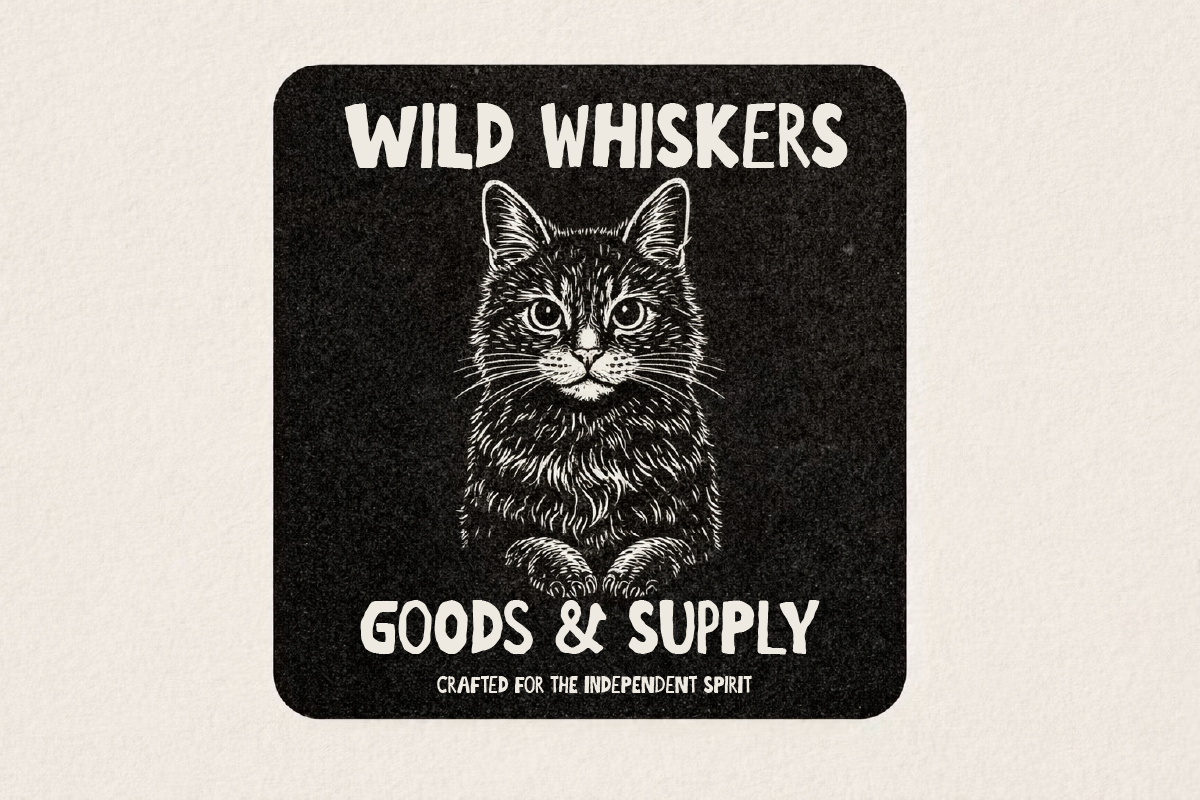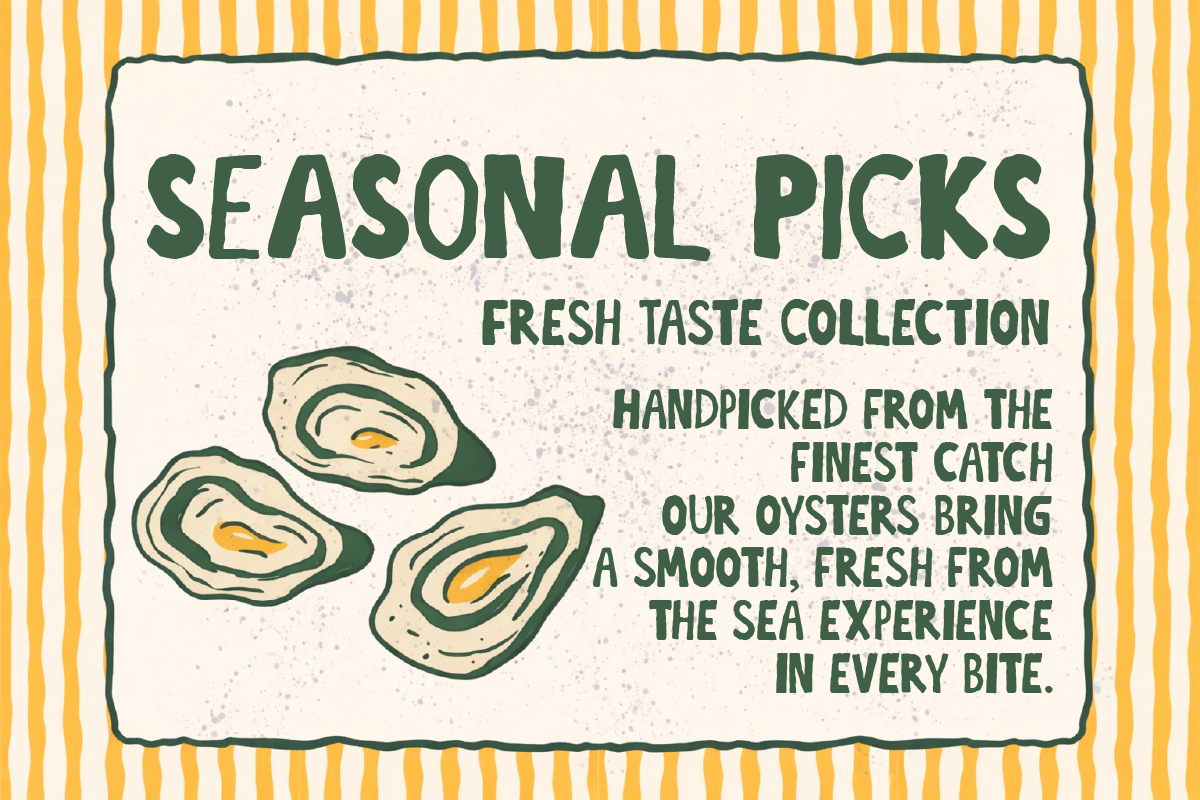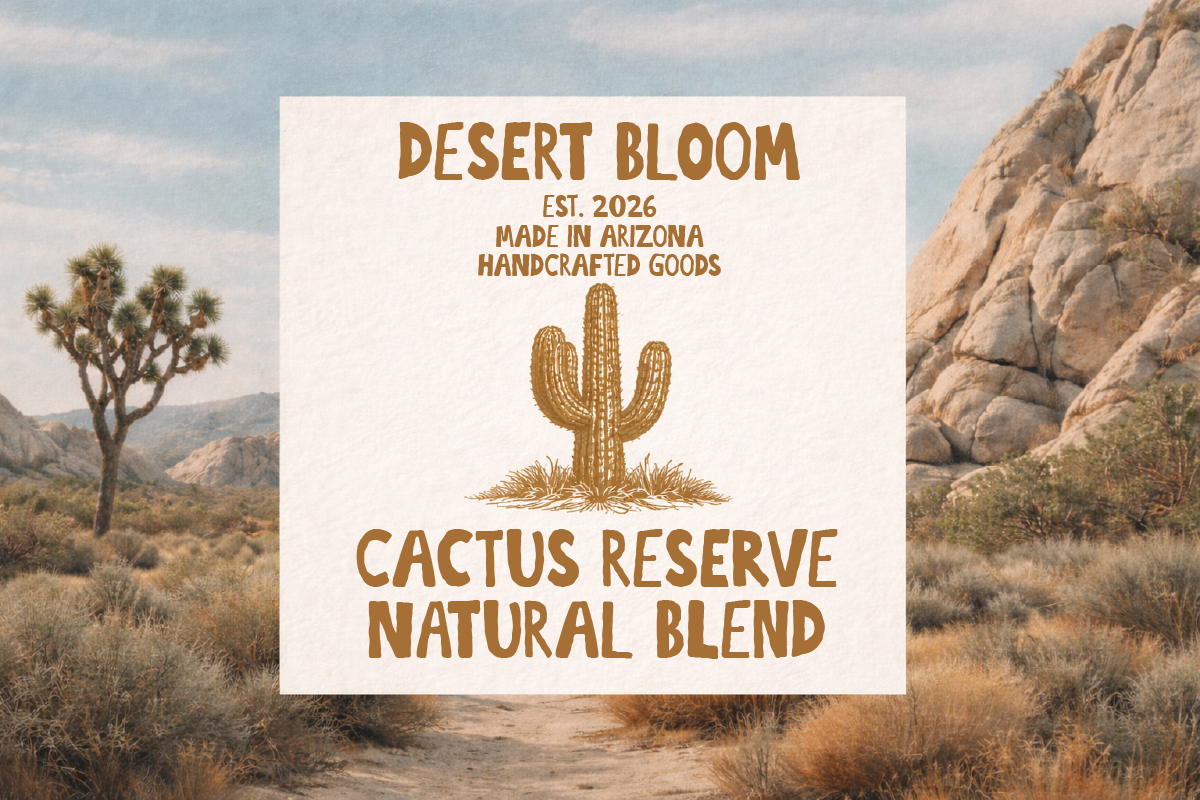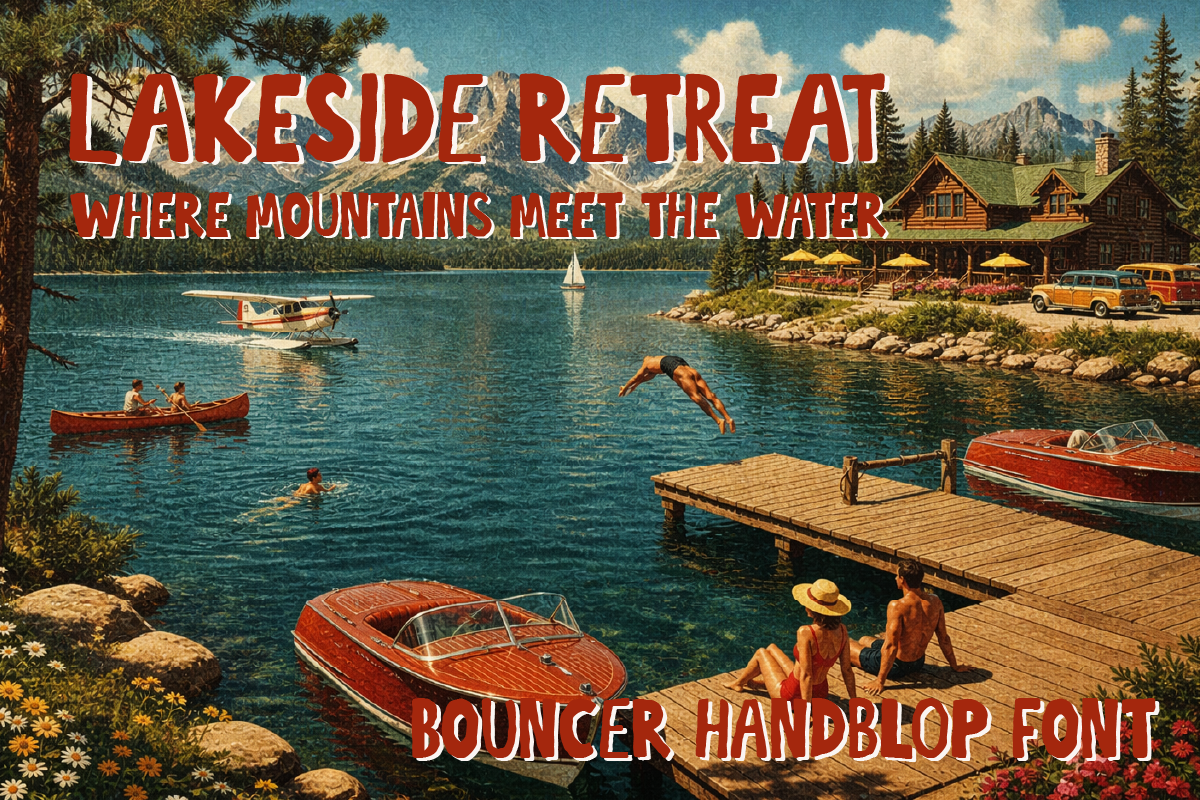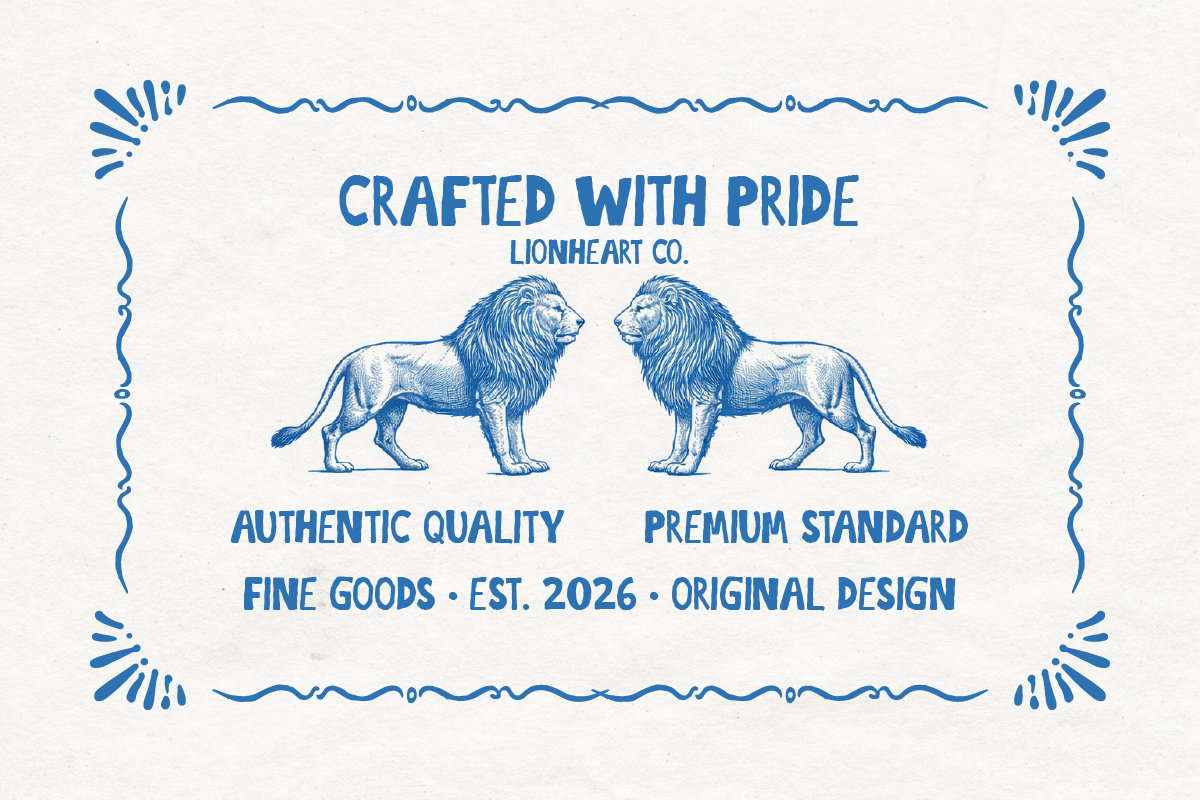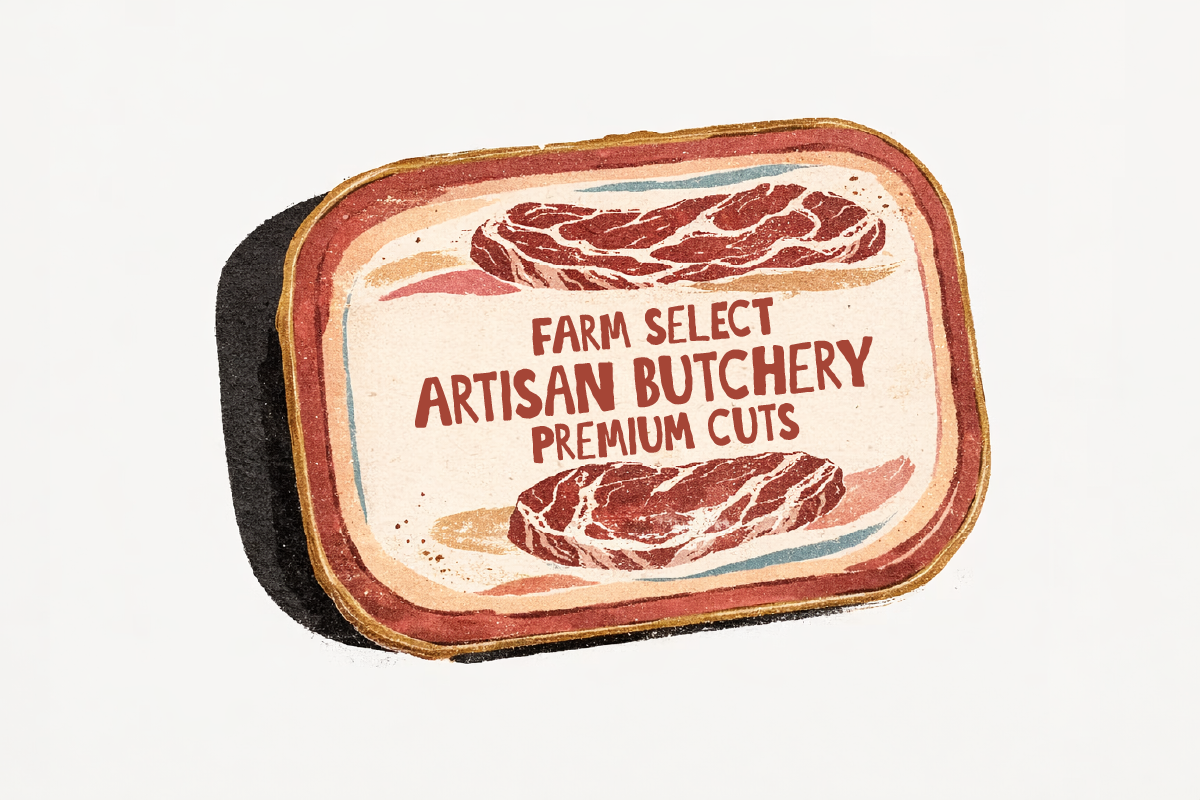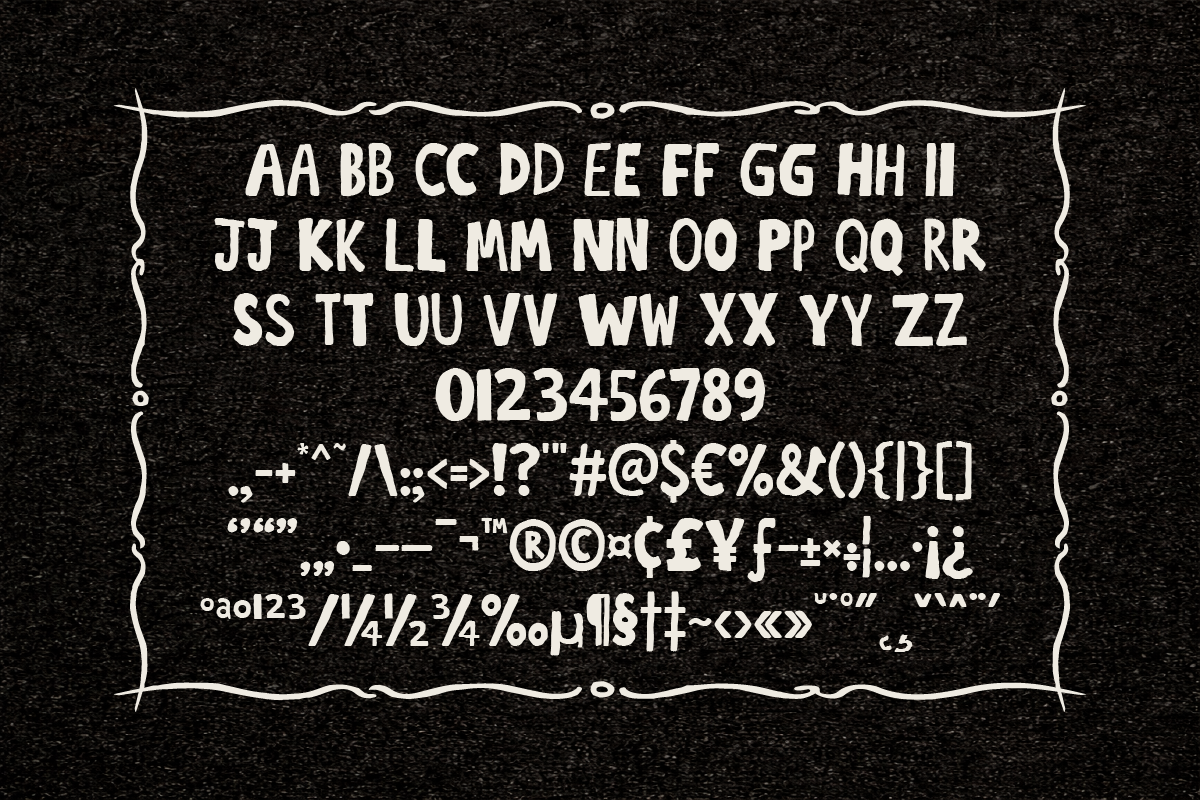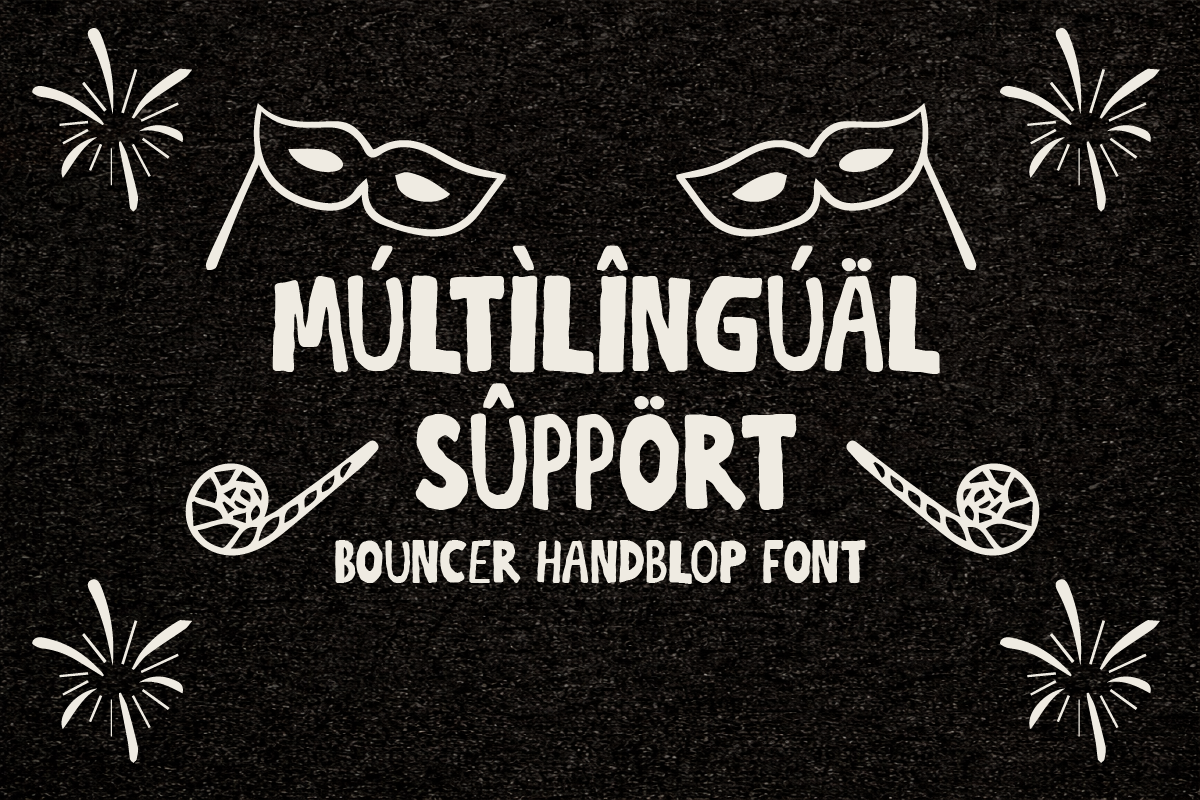
Bouncer Handblop
Bouncer Handblop is a bold and expressive handcrafted display typeface designed to capture the warmth, charm, and personality of traditional hand-lettering. Inspired by vintage signage, playful branding, and artisanal typography, this font brings a lively and approachable character to any creative project.
The letterforms feature soft, rounded edges and slightly irregular strokes that mimic the natural flow of hand-drawn lettering. This organic quality gives Bouncer Handblop a friendly and authentic feel while maintaining strong visual presence and readability. Each character carries subtle imperfections that add charm and individuality, making the font feel alive and full of personality.
Bouncer Handblop is especially suited for projects that aim to evoke nostalgia, creativity, and handcrafted aesthetics. Its bold structure makes it ideal for headlines, logos, packaging, posters, merchandise, and branding materials where a strong yet playful visual identity is desired.
The typography balances vintage inspiration with modern usability. Its thick strokes and generous spacing allow the text to stand out clearly in both print and digital formats. Whether used in large display sizes or as a focal point in design compositions, Bouncer Handblop maintains clarity and visual impact.